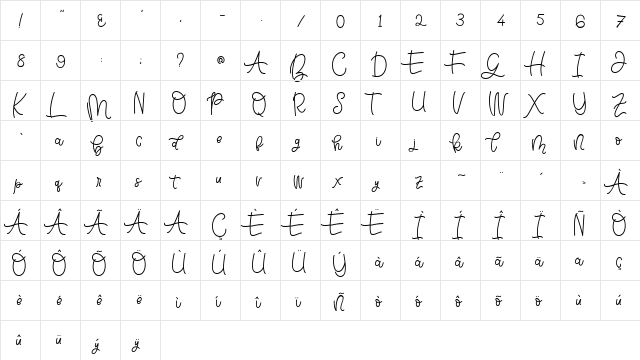
Bellinda Script Regular
Design Context for Bellinda Script Typeface
Bellinda Script flows with the natural rhythm of handwritten lettering, making it ideal for designs that call for warmth and personal expression.
Font Pairing: Combine Bellinda Script with a simple geometric sans for maximum contrast — the tension between flowing curves and clean structure is a classic typographic pairing.
Pro Tip: Pair Bellinda Script with a clean sans-serif for supporting text. The contrast between fluid script and geometric structure creates an elegant typographic hierarchy.